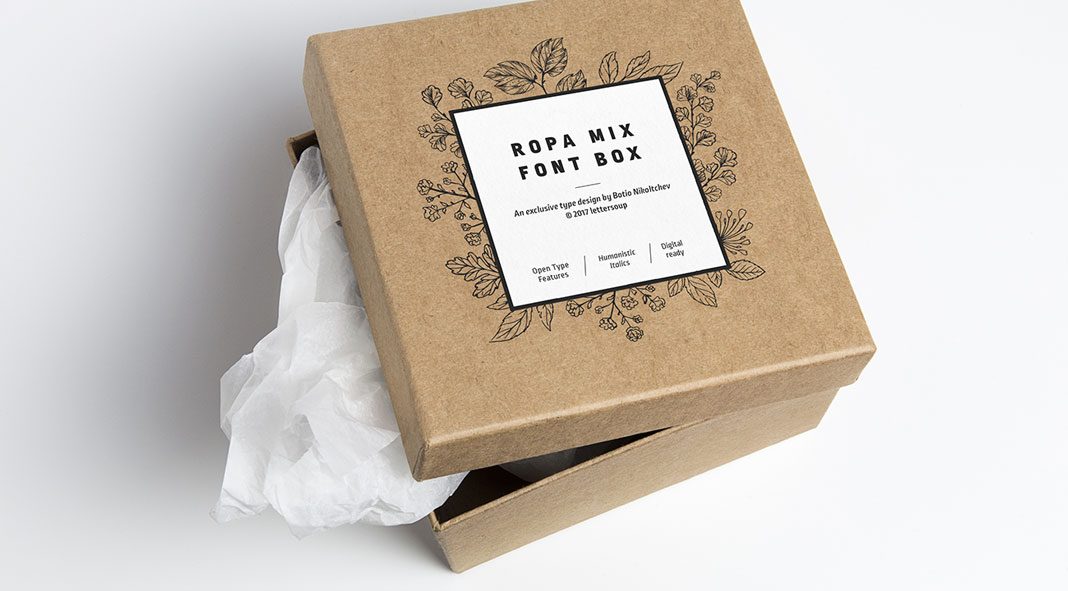
Ropa Mix Pro, a unique sans serif font family designed by Botio Nikoltchev of foundry Lettersoup.
With Ropa Mix Pro, type designer Botio Nikoltchev has released the third representative of the extensive Ropa superfamily. This latest release masterfully combines the clean characteristic of Ropa Sans with the friendly appearance of Ropa Soft Pro. Due to its great variety of weights, the family is well suited for both headlines and body texts. The set of humanistic Italics gives the typeface a more quirky and playful touch.
Equipped with two free demo weights, multi language support (Latin, Cyrillic and Greek writing systems) as well as numerous OpenType features, the Ropa Mix Pro font family is a modern sans serif for highest professional needs. The extensive set of OpenType features includes ligatures, case-sensitive forms, fractions, super and subscript characters, stylistic alternates, old style and lining figures in tabular and proportional widths. Furthermore, the typeface was manually optimized for both print and screen. Please note, the family is currently available as introductory offer on Fontspring. To know more about this unique and modern sans serif type family, just follow the link below.